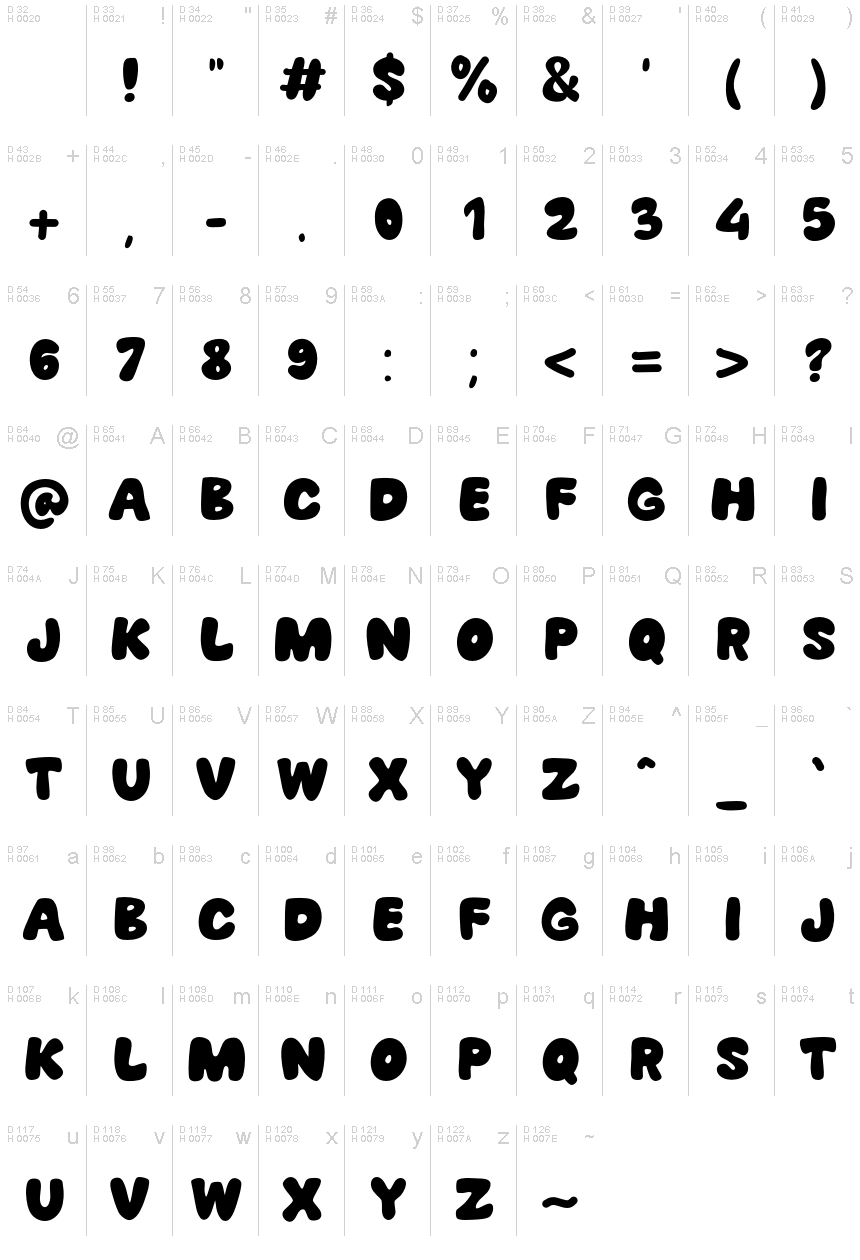
Gentonk
Gentonk font, designed by MJType, is a bold display typeface bursting with personality and charm. Its cartoonish style captures attention with playful curves and dynamic forms, making it perfect for designs that aim to convey fun and creativity. The boldness of Gentonk gives it a commanding presence, while its unique, exaggerated features lend a whimsical touch that can elevate any visual project.
Ideal for children's products, party invitations, or vibrant branding campaigns, Gentonk stands out in both print and digital media. Its distinctive character ensures it remains memorable across various contexts, inviting audiences to engage with the content in an entertaining way. Embrace the lively spirit of Gentonk to add flair and excitement to your next creative endeavor.